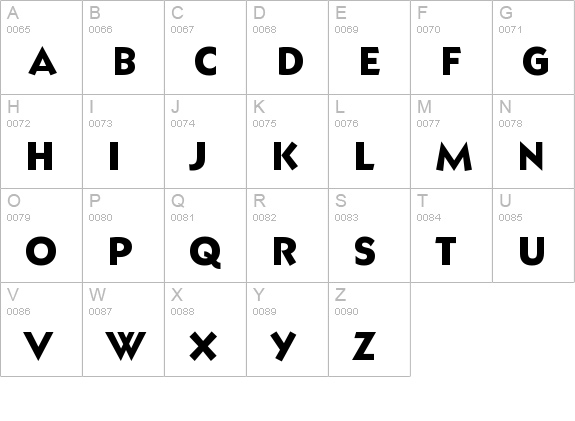
Bully Normal font is a versatile and stylish typeface that exudes confidence and strength. With its bold and impactful design, Bully Normal is perfect for making a statement in your projects. This font features clean lines and a modern aesthetic that will catch the eye of any audience. Whether you're designing a poster, logo, or website, Bully Normal will add a touch of boldness and sophistication to your work. The best part? Bully Normal font is available for free download at FontsMarket.com. Simply head over to the website to get your hands on this powerful and dynamic typeface. Don't miss out on the opportunity to enhance your designs with Bully Normal font today!